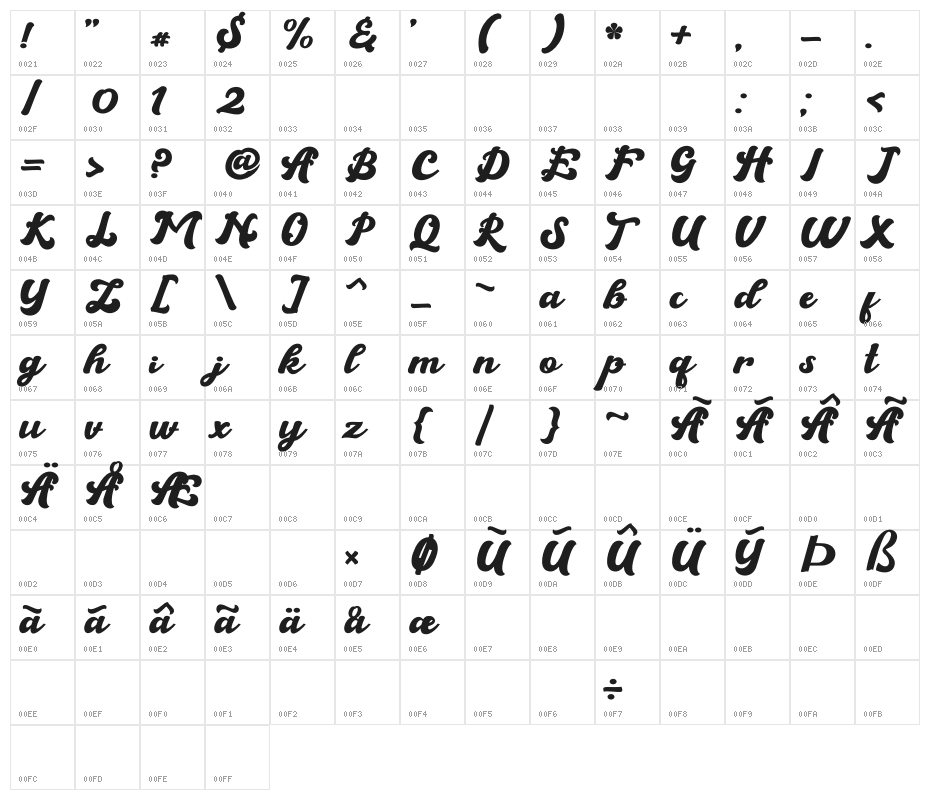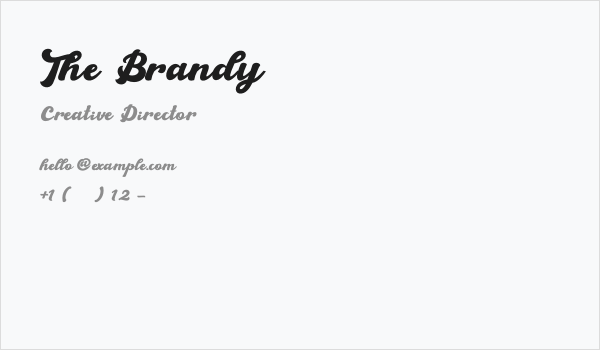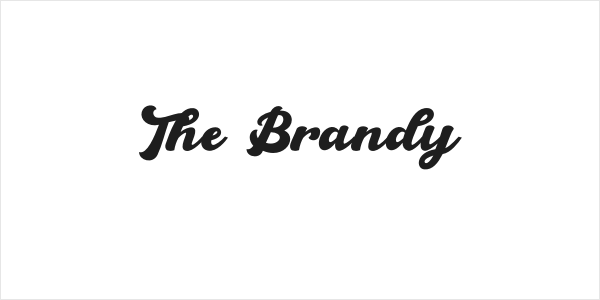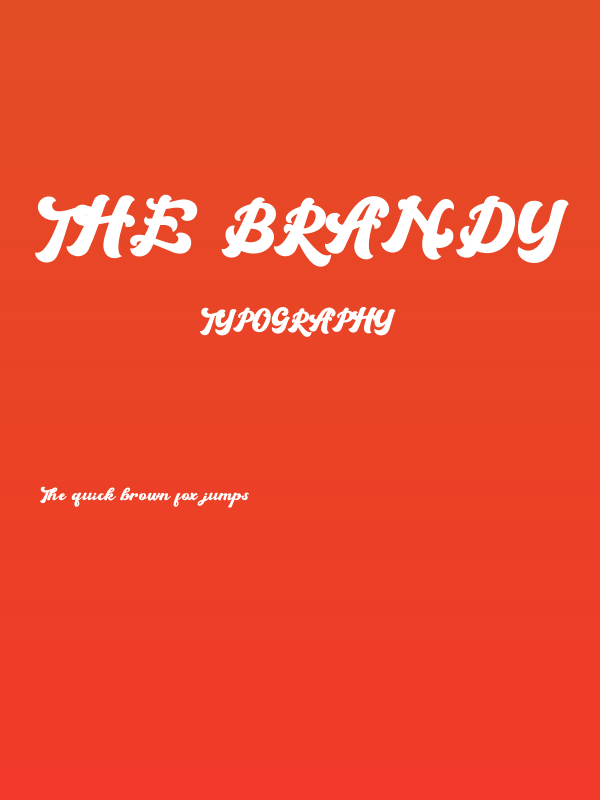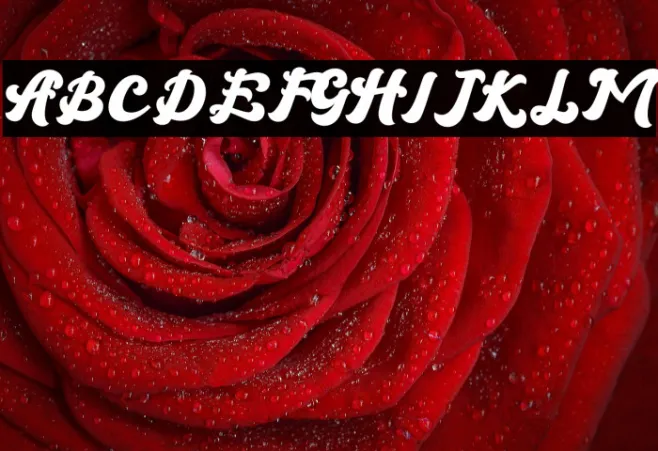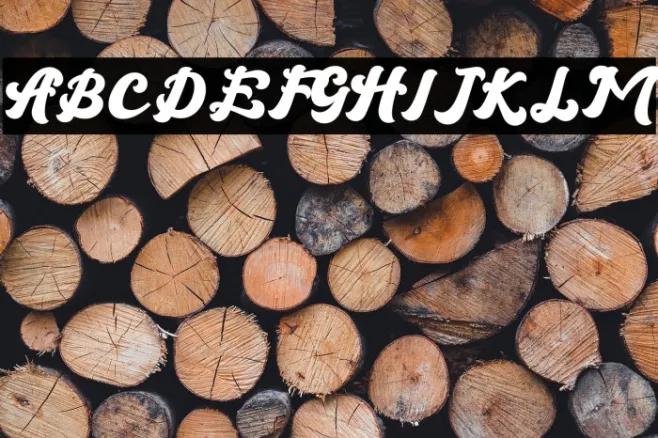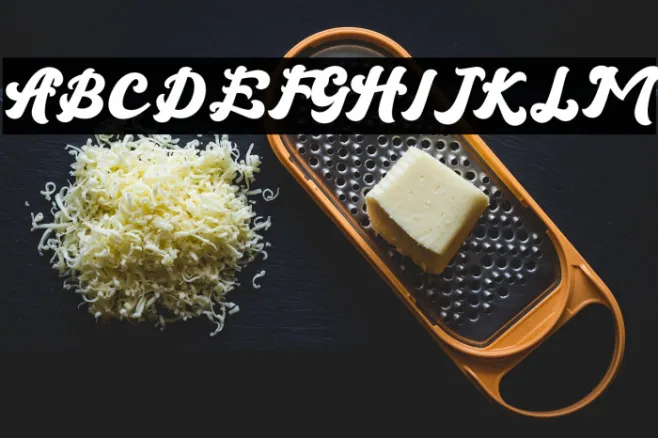
The Brandy Font
The Brandy Description
This font exhibits a bold, cursive style with a strong presence. The characters are interconnected, creating a fluid and continuous appearance. The uppercase letters are slightly more ornate, with elegant curves and flourishes, while the lowercase letters maintain a consistent flow. The numbers are bold and rounded, matching the overall style of the alphabet. Special characters are designed to complement the script, maintaining the same bold and flowing characteristics. This font is ideal for making a statement with its eye-catching and dynamic design.
| Use Case | Logos, Invitations, Decorative Headlines |
| Proposed Projects | Ideal for branding, invitations, and decorative headlines where a bold, elegant script is desired. |